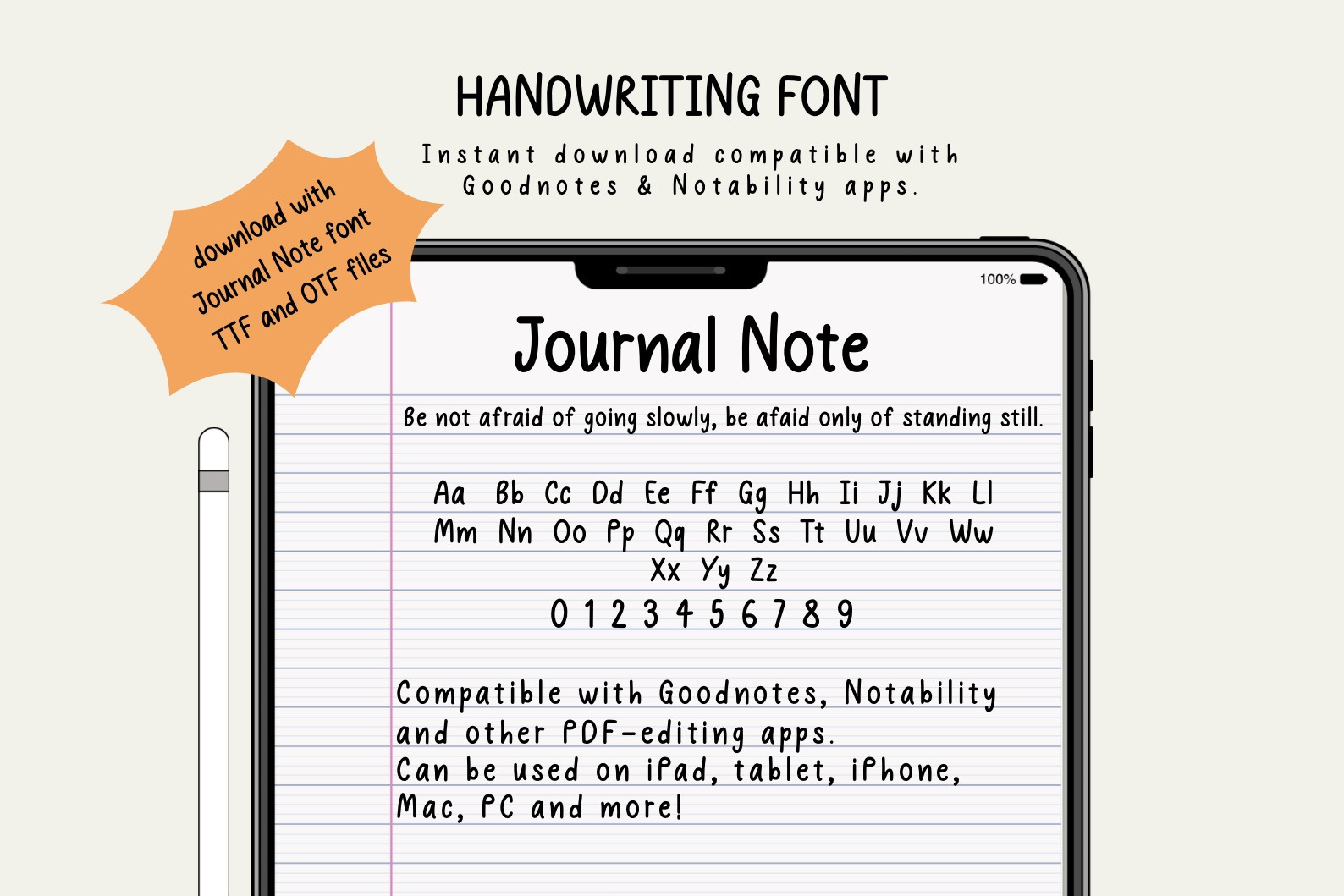
Journal Note Handwritten Font
Handwriting Font for Digital Planners and GoodNotes Product Overview Give your digital notes a personal and natural look. This font is designed to look like neat, hand-drawn writing. It is perfect for students, digital planners, and anyone who wants their iPad notes to look organized and aesthetic.
Why Choose This Font
- Legible: Easy to read even when your notes are small.
- Natural: Mimics real handwriting for a cozy, personal feel.